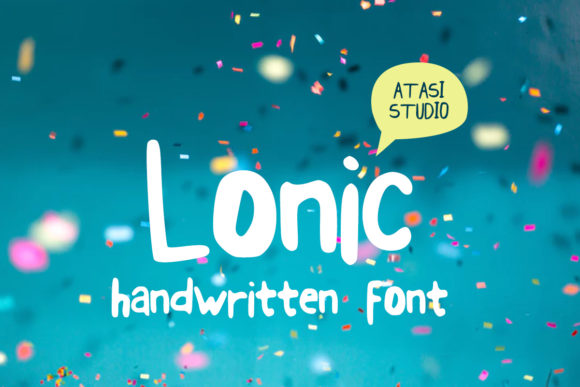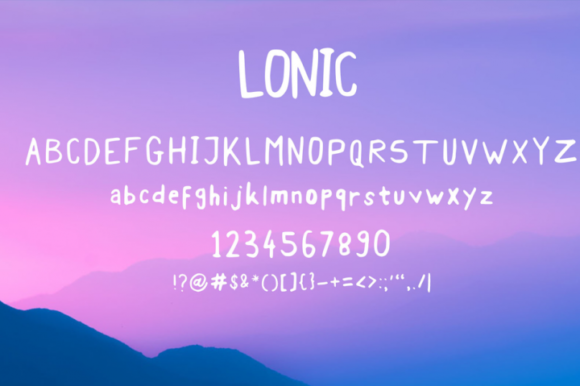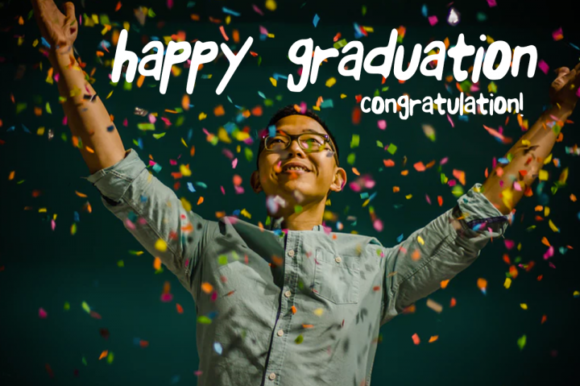
Lonic Font
About Lonic Font
Introducing The Lonic, a casual handwritten font that exudes a fun and modern vibe. This font is not just a typeface; it’s a design asset that injects a playful feel into your creative projects. The Lonic is perfect for quotes, greeting cards, posters, and any other design that calls for a lighthearted and contemporary touch.
The casual handwritten style of The Lonic brings a sense of authenticity and spontaneity to your text. Its fun and modern vibe makes it versatile for a variety of applications, allowing you to infuse a playful energy into your designs.
For quotes, The Lonic adds a touch of personality and charm, turning words into visually engaging statements. Greeting cards benefit from its lighthearted and friendly demeanor, creating a warm and inviting atmosphere. Posters come to life with the font’s modern vibe, making information more dynamic and appealing.
Whether you’re working on social media graphics, branding materials, or any project that requires a playful feel, The Lonic is a reliable choice. Its adaptability and contemporary style make it a valuable asset in your creative toolkit.
In summary, The Lonic is more than just a font; it’s a design companion that brings a casual and playful handwritten style to your projects. Embrace its fun and modern vibe for quotes, greeting cards, posters, and more, and let The Lonic add a touch of spontaneity and energy to your designs.